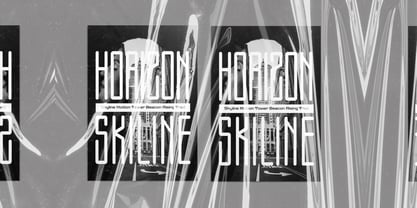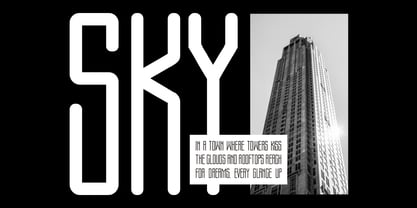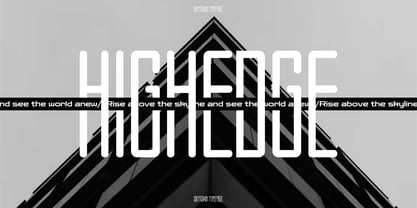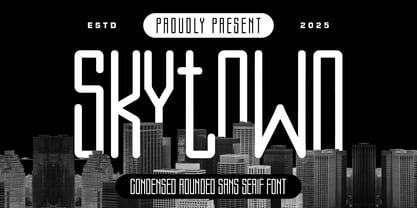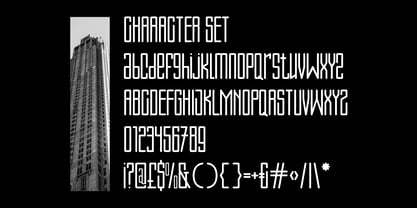
Skytown
by Shanaf
The Skytown Font Family was designed by Yesie Erma Yunita and published by Shanaf. Skytown contains 1 styles. More about this family
Skytown is a modern condensed rounded sans serif font designed to echo the vertical dominance of skyscrapers in a metropolitan skyline. The tall, narrow proportions are paired with soft, rounded corners, giving it an architectural edge while maintaining approachability. Each letterform is constructed with a consistent stroke weight, resulting in a clean and structured composition ideal for minimalist, futuristic, and editorial aesthetics. The letter spacing and alignment have been finely tuned to enhance legibility, especially in large-scale settings. With its elongated verticals and tight horizontal spacing, Skytown brings a commanding visual presence to headlines, posters, and typographic layouts that aim to be bold and modern.
This font is highly suitable for branding, packaging, film titles, book covers, and digital graphics. It brings a harmonious blend of industrial sophistication and futuristic elegance, making it a go-to typeface for designers seeking to communicate confidence and elevation. Whether used for tech branding, architectural concepts, or creative posters, Skytown delivers clarity and impact without sacrificing style. It is optimized for both print and screen, offering an impressive character set with uppercase, lowercase, numerals, and essential punctuation.
Designers: Yesie Erma Yunita
Foundry: Shanaf